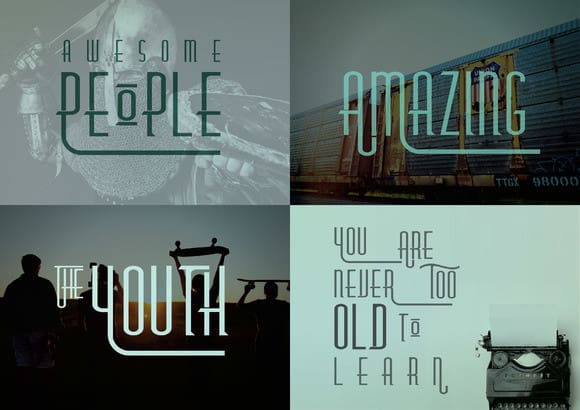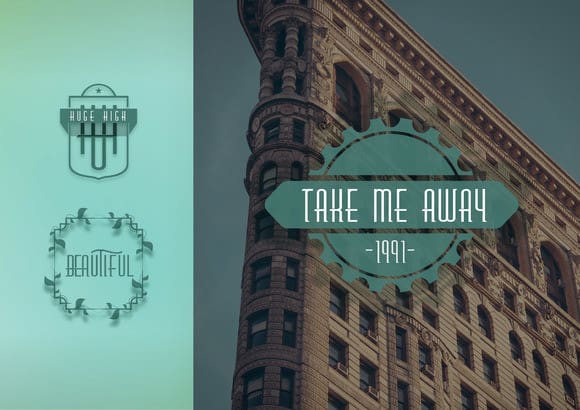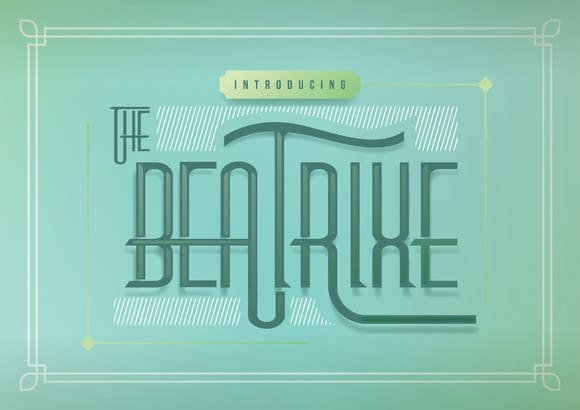
Beatrixe Font
Beatrixe Font will give your design a unique touch. It was inspired by vintage lettering and it can be used for various purposes such as headings, logos, invitations, t-shirt designs, greeting cards, posters, labels, book covers, brochures, and much more!